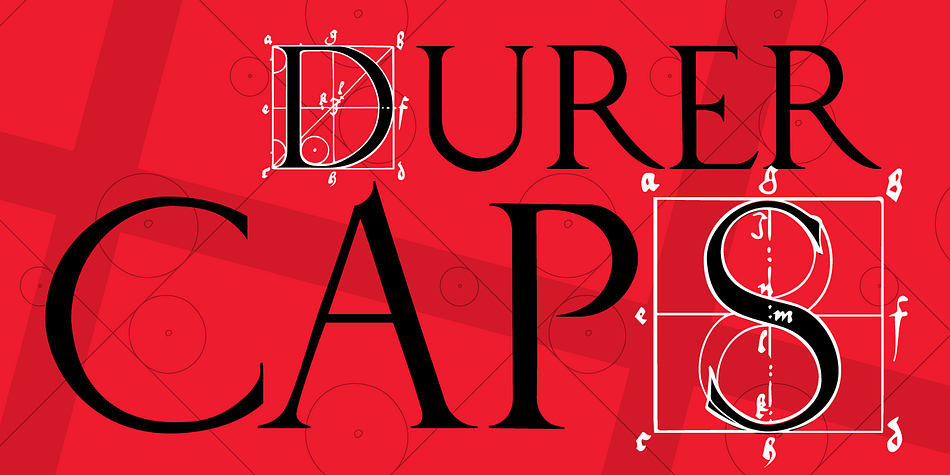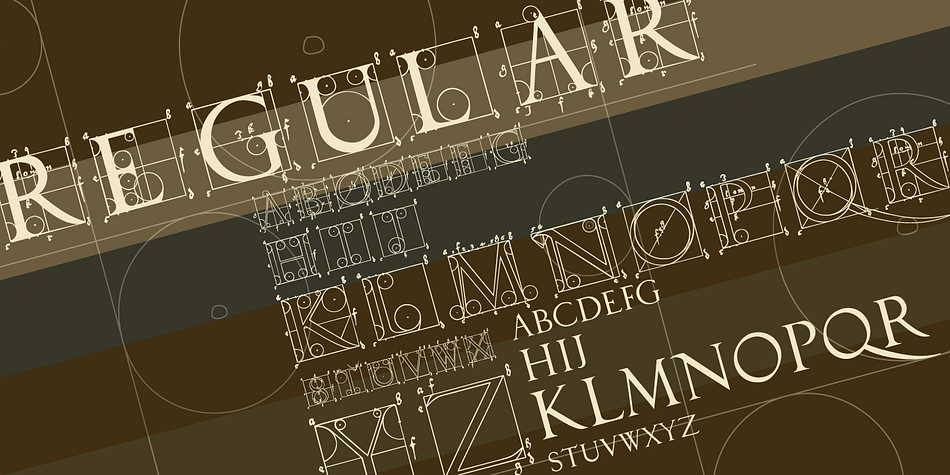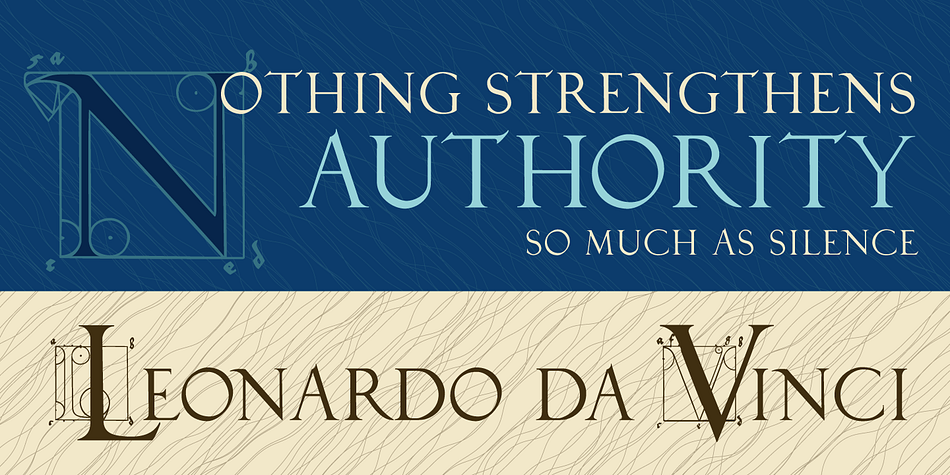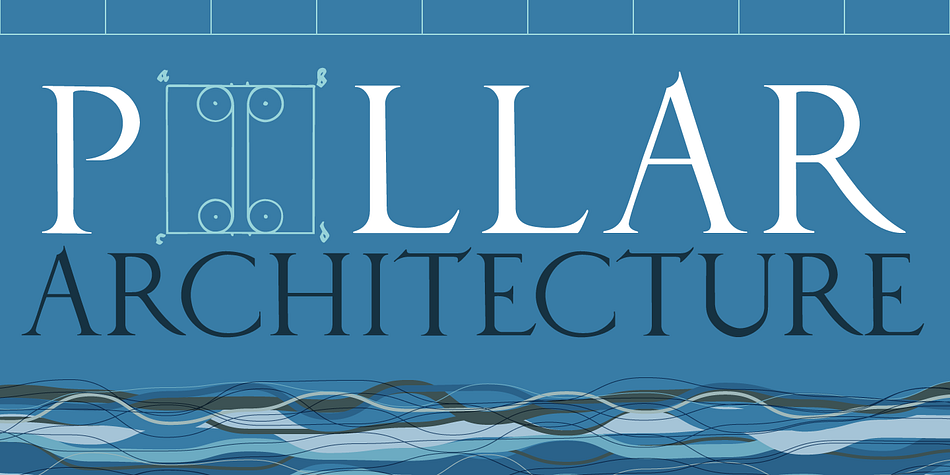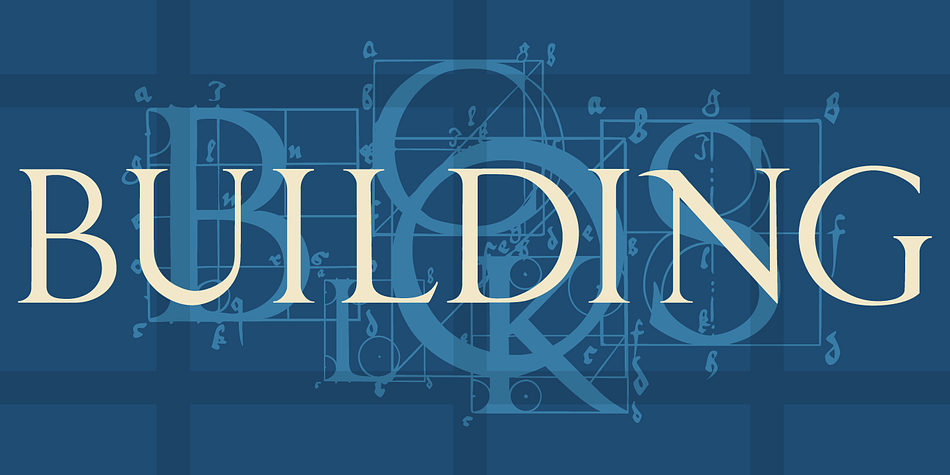
P22 Durer Caps is a display serif font published by International House of Fonts.
Durer Caps is four fonts in one.
Based on master artist Albrecht Durer’s 1525 geometric construction of Roman capitals, this font features A to Z caps only. But there are three variations included: 1) filled; 2) unfilled; and 3) letters only.
The last two feature a unique two-color overlay option.